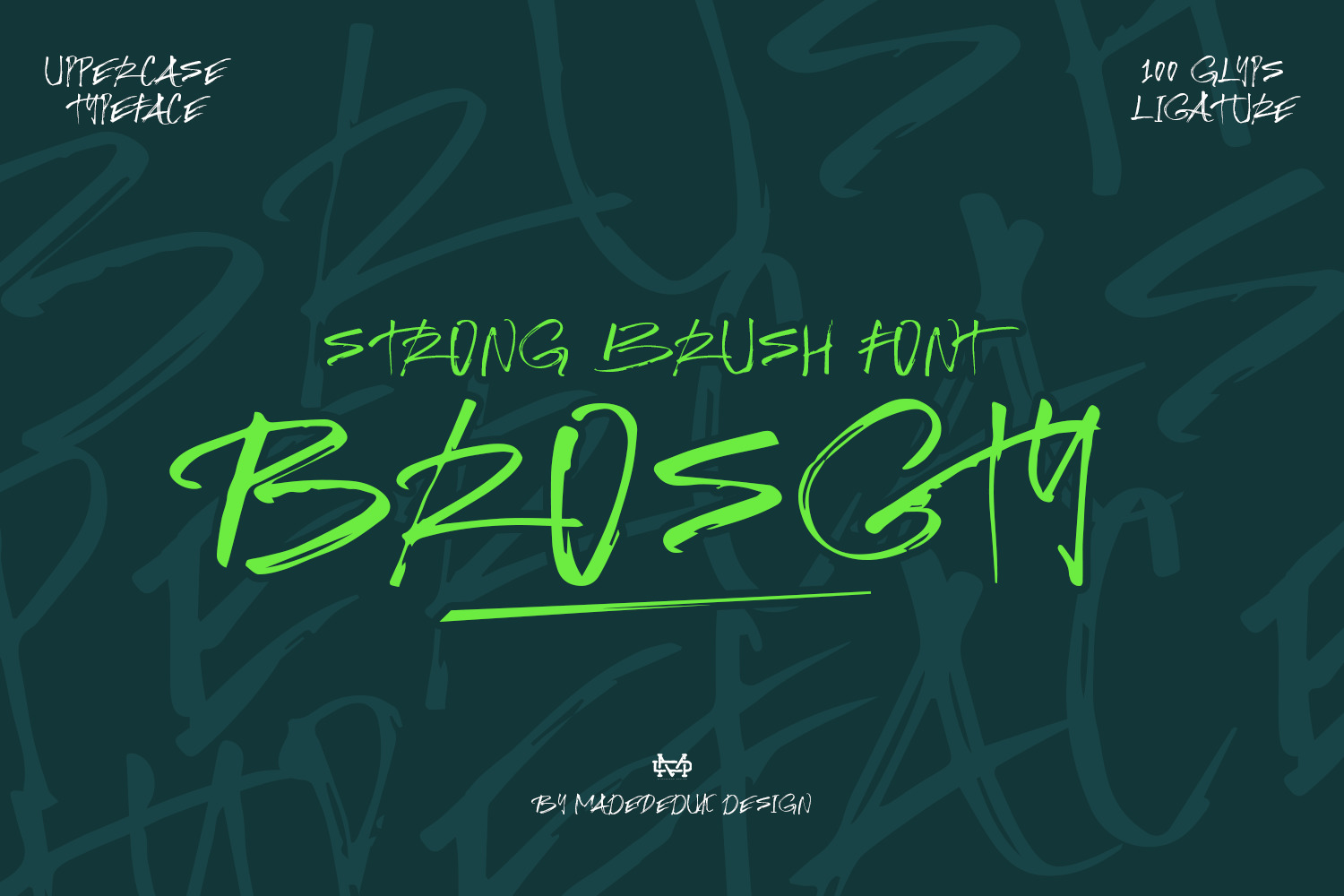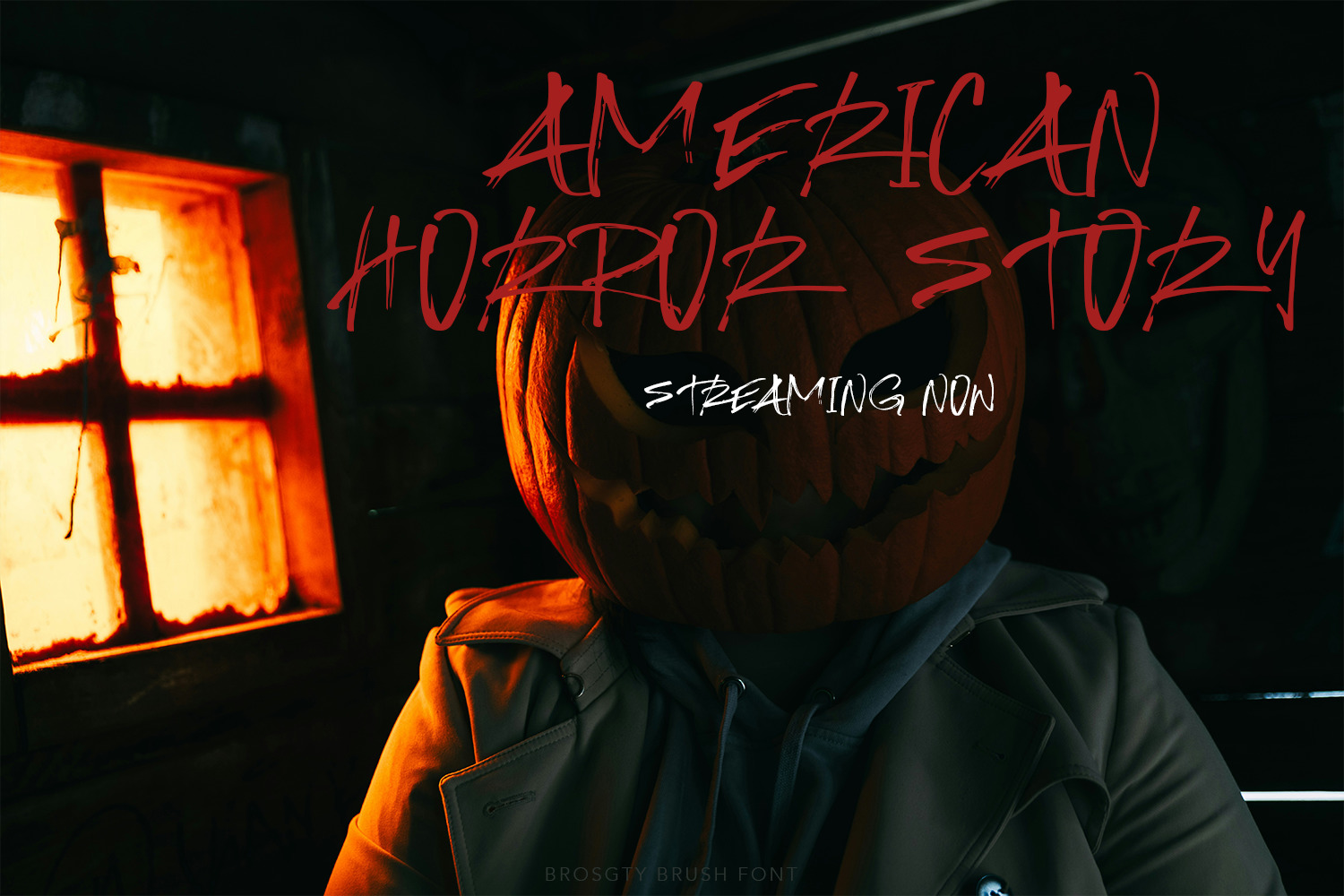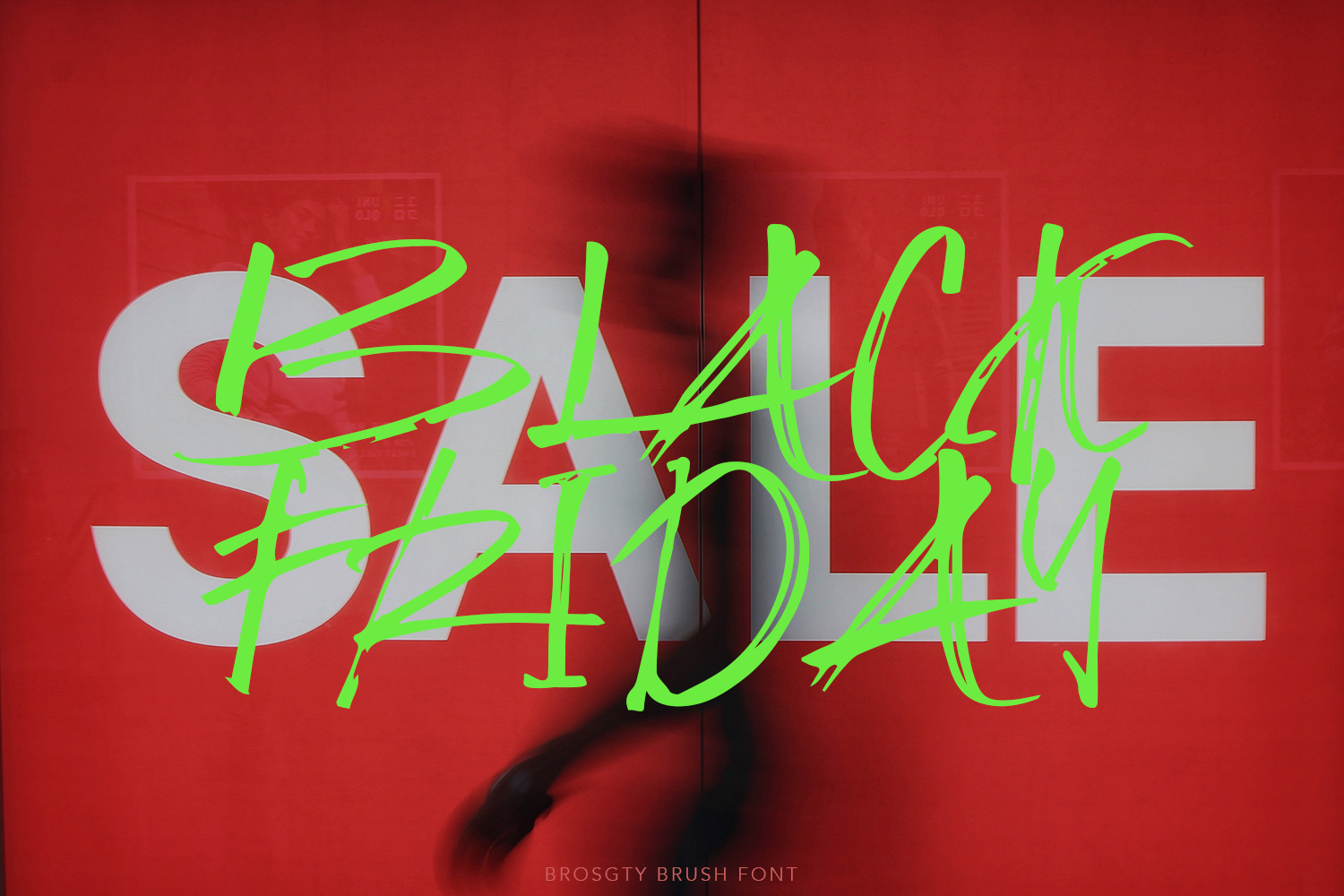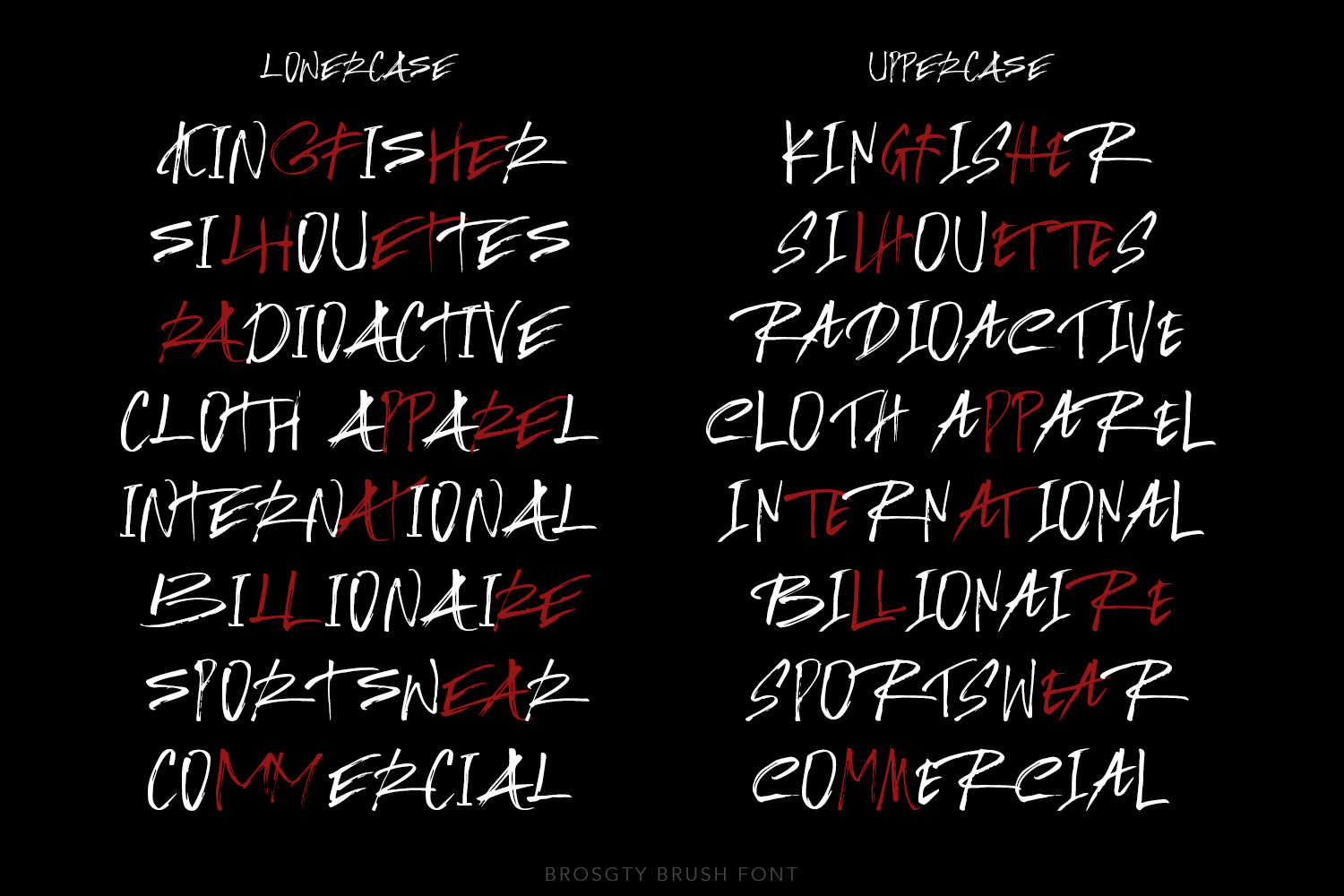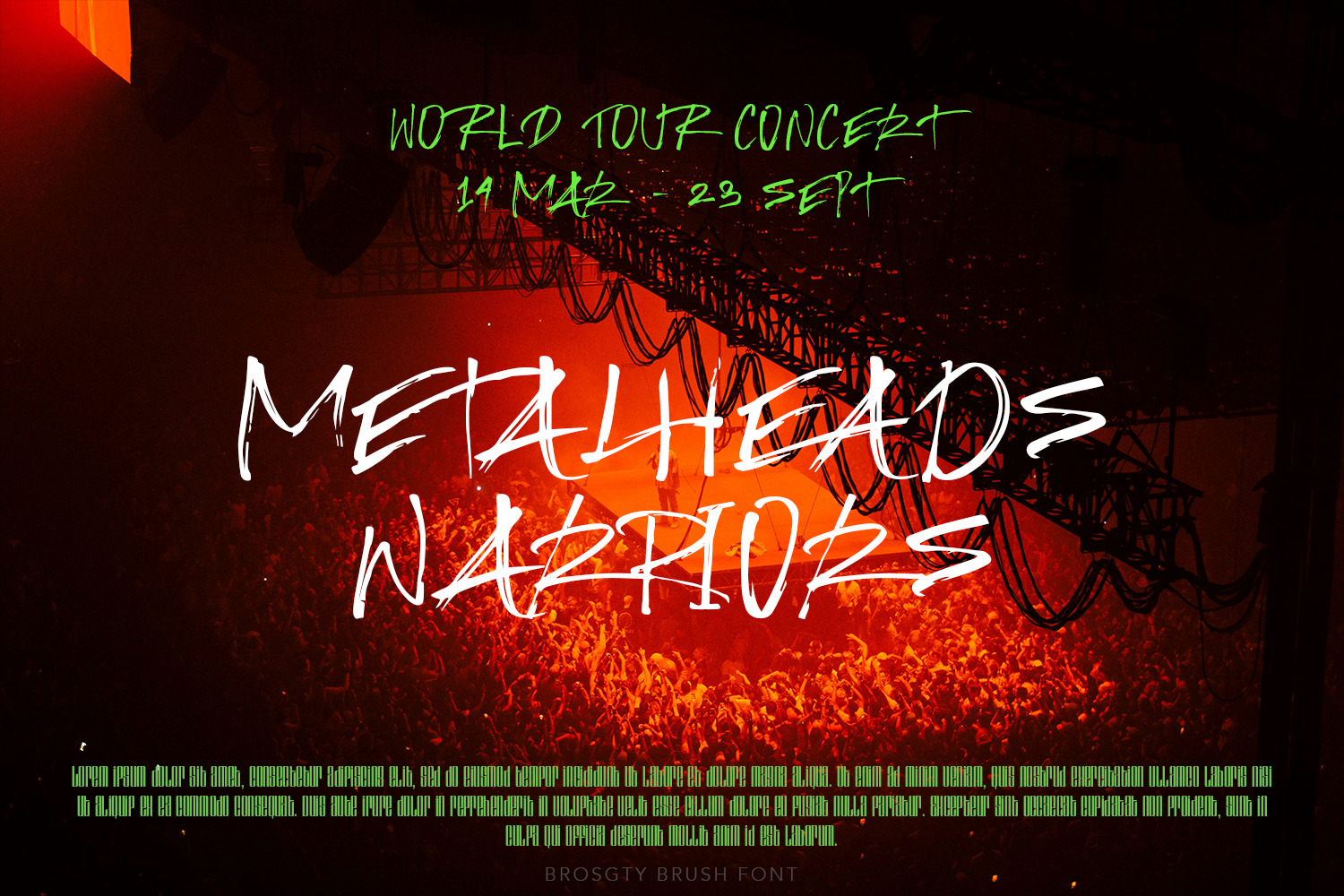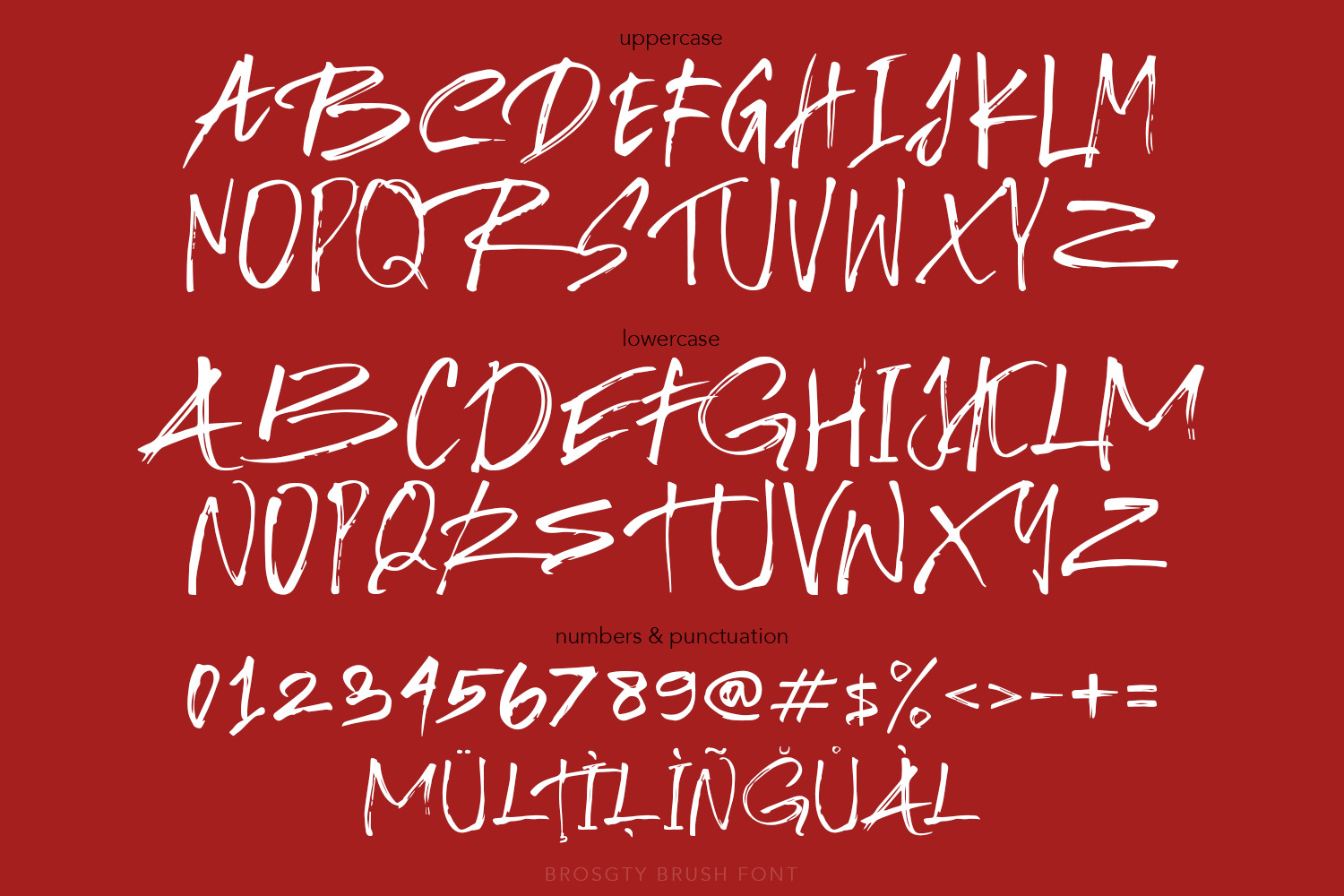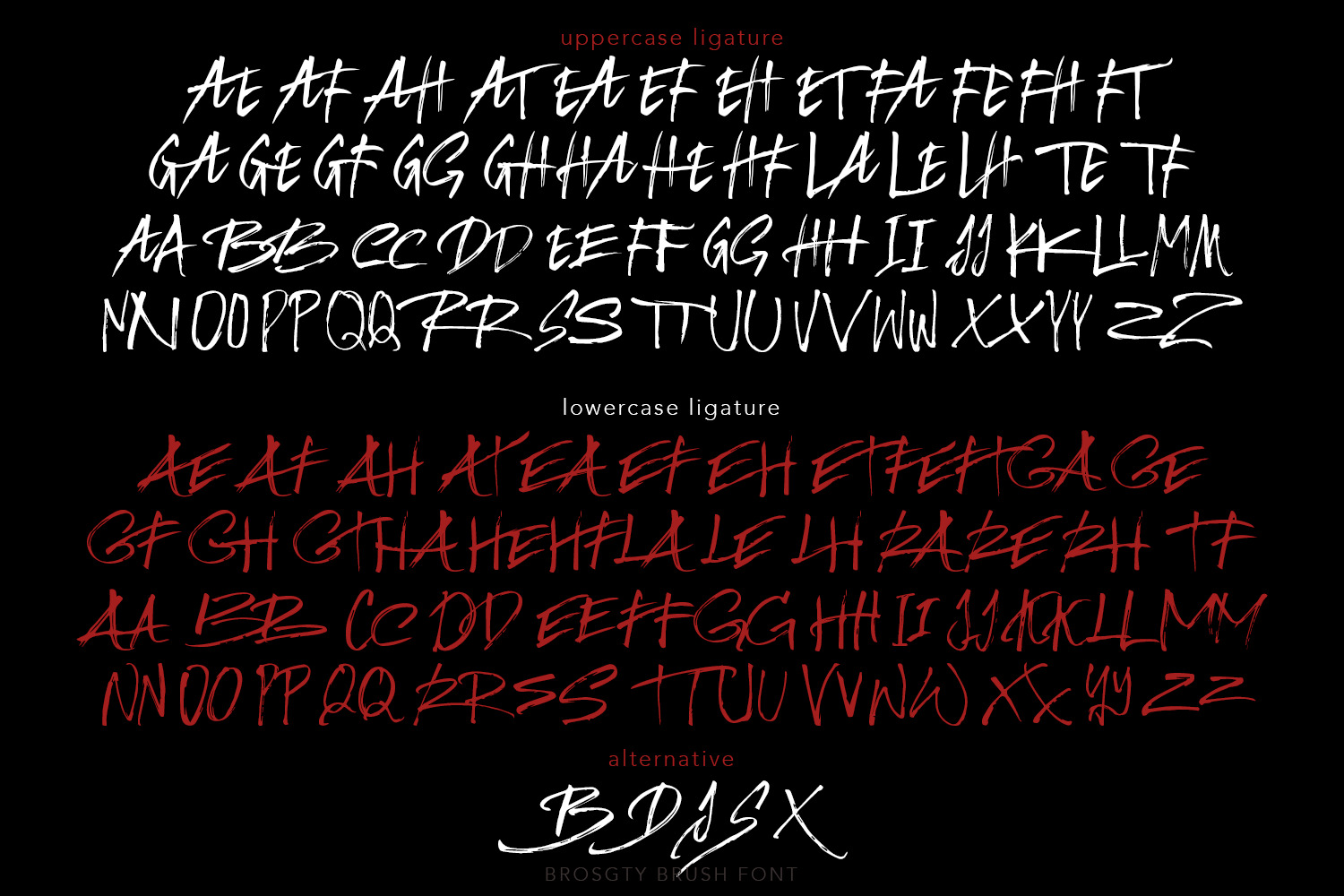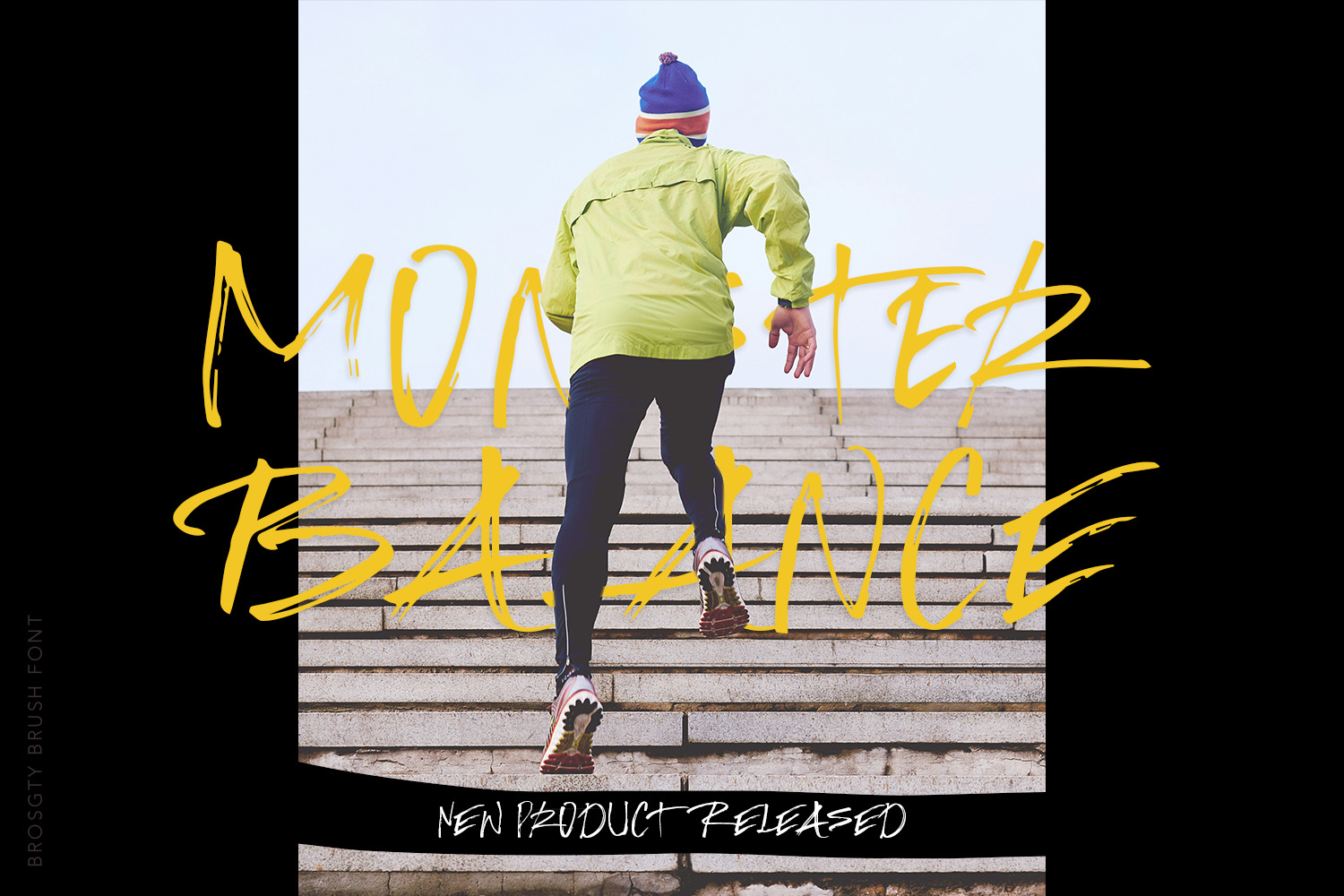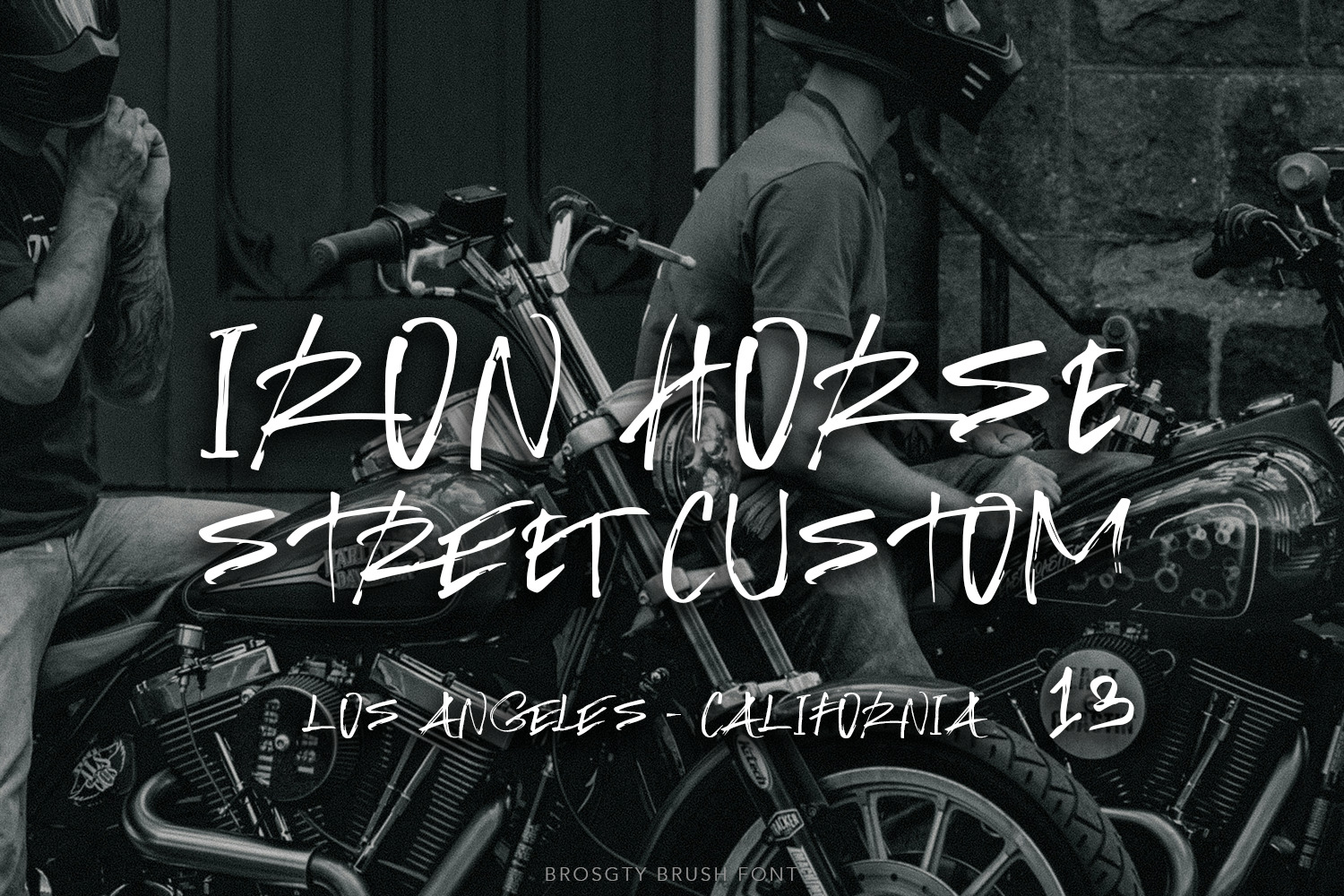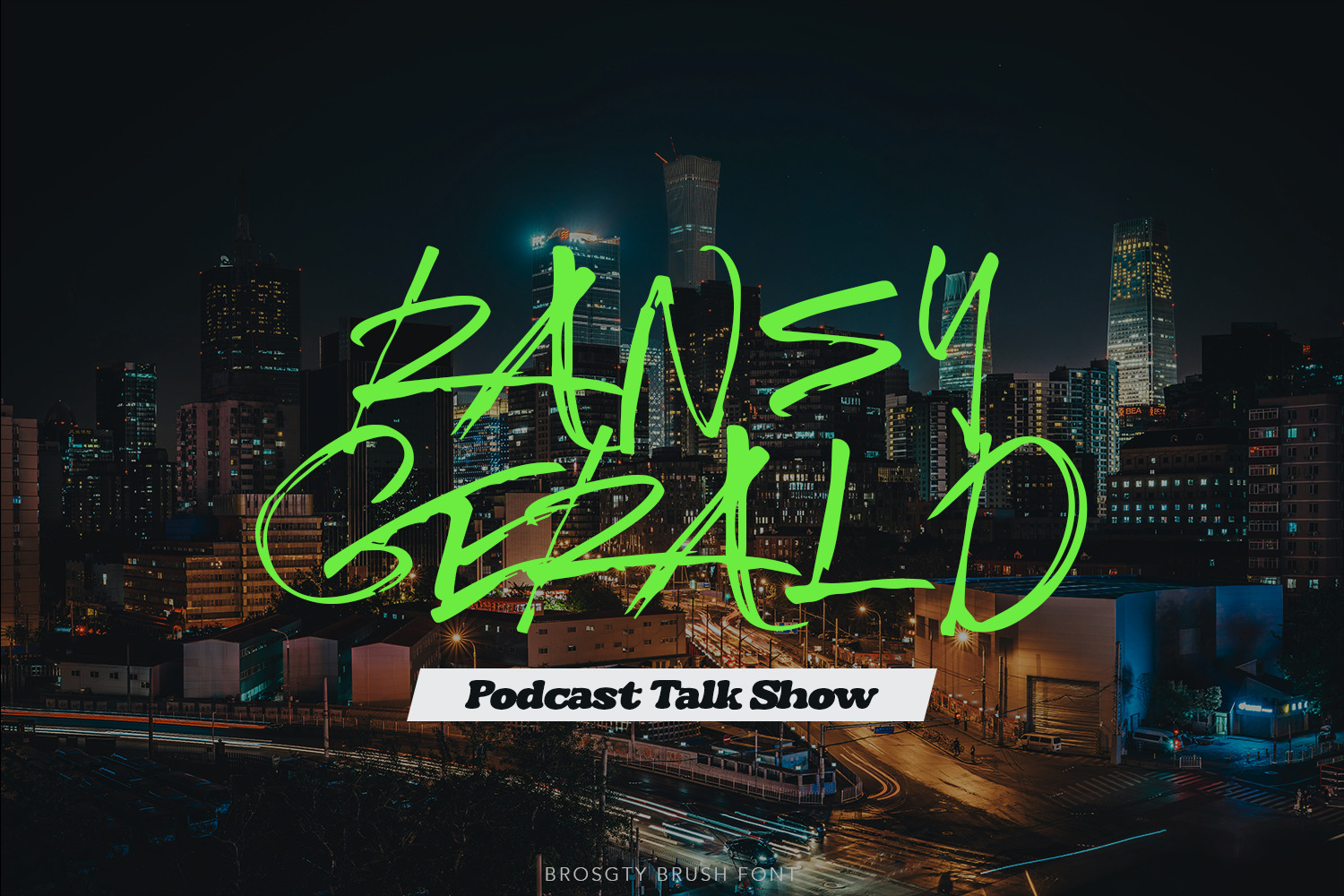
Brosgty Brush Font
Brosgty is a brush font contains 100+ ligatures comes with proud all caps font was hand drawn with a real brush marker. This font perfect for branding, posters, logos, fashion, headline and more.
Feature
- Number & Symbol
- International Glyphs
- Ligature
- Alternative